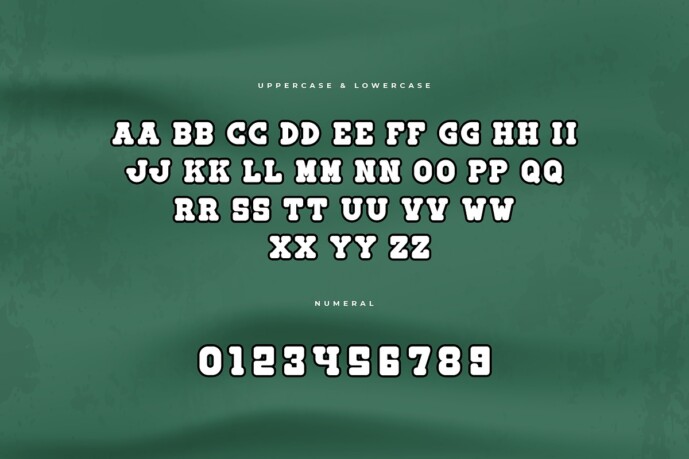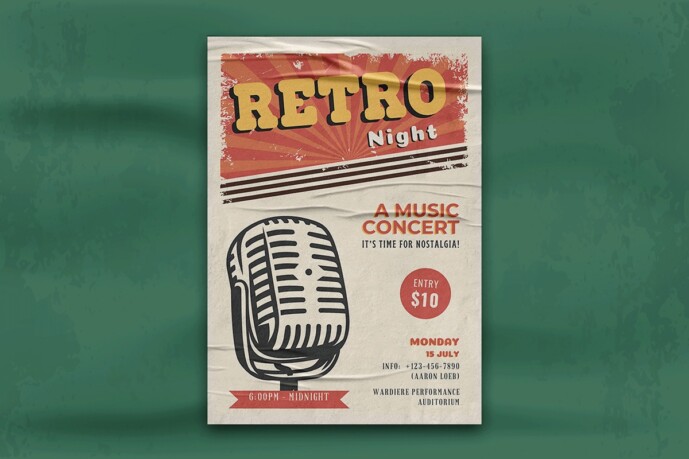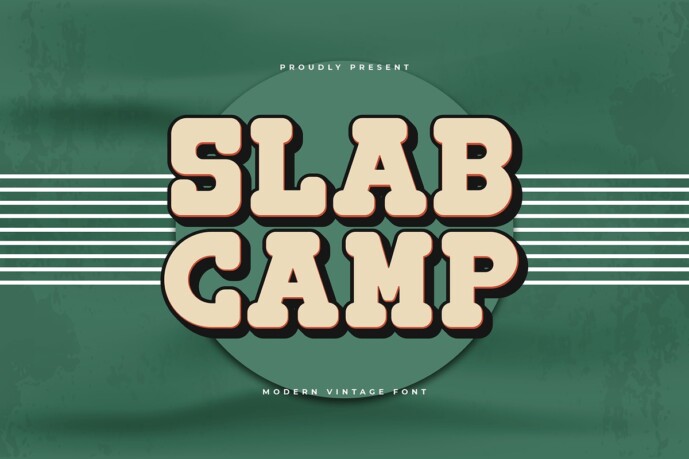
Slab Camp Font
Slab Camp Font, a modern vintage font that merges retro charm with a modern edge. Perfect for graphic designers, branding experts, and creatives looking to infuse their projects with a touch of nostalgic flair, Slab Camp offers a distinctive and versatile typeface that stands out.
Ideal for logos, posters, packaging, editorial layouts, and web design, Slab Camp’s bold and sturdy characters evoke a sense of timeless appeal and rugged sophistication. Each letter is meticulously crafted to ensure readability and visual impact, making your designs both memorable and stylish.
The “Slab Camp” font includes a complete set of uppercase and lowercase letters, numbers, punctuation marks, and special characters. This versatility allows for seamless integration into various design projects, from eye-catching logos to striking posters.
Enhance your designs with Slab Camp, the modern vintage font that brings retro charm and contemporary sophistication to every project.